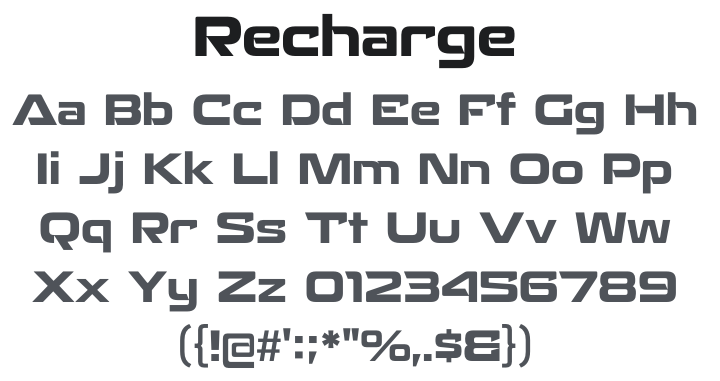
Recharge Font
About Recharge
Recharge is a wide, square sans serif built for engineered clarity and modern impact. Its angular terminals and balanced geometry give it a precise, industrial tone that scales smoothly from sleek UI design to bold sports or automotive branding. Seven weights with italics cover a broad expressive range, from light, technical applications to heavy, high-energy displays. Consistent proportions ensure cohesion across media, while extensive Latin language support makes it ideal for global use. Recharge combines strength, precision, and versatility in a single, performance-driven type family.